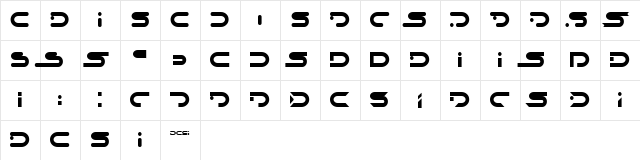
DCSi Regular
Design Context for DCSi Typeface
DCSi offers clean, dependable letterforms without strong stylistic allegiance, making it a practical choice for designers who need flexibility.